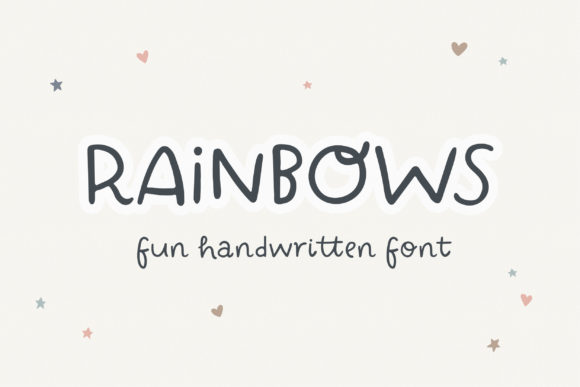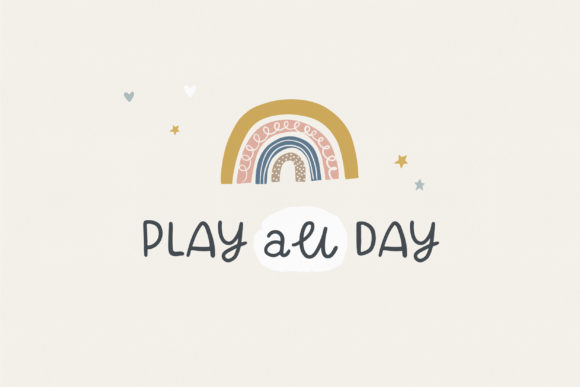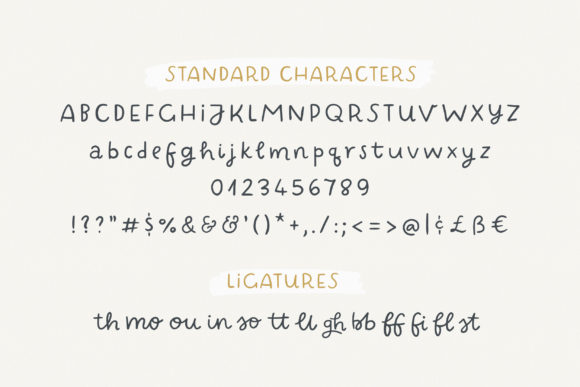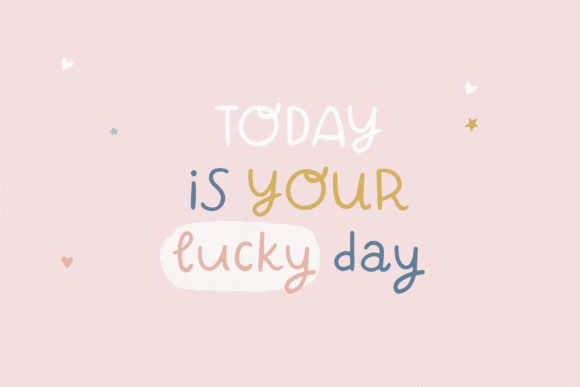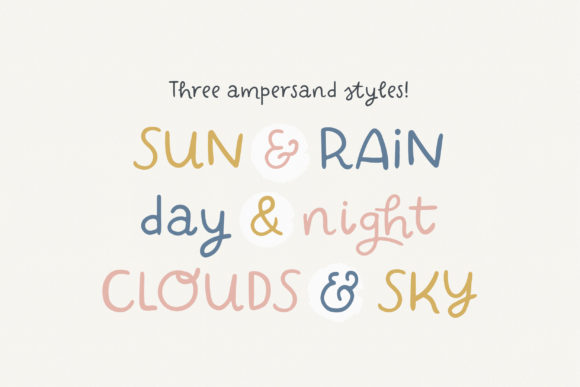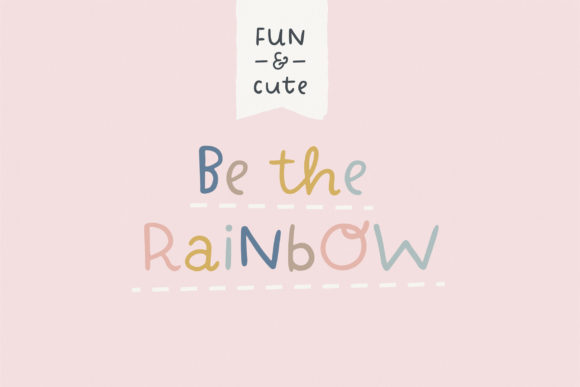
Rainbows Font
About Rainbows Font
Rainbows is a fun and simple handwritten font. Thin lettered and cute, this font will brighten up a variety of design ideas related to children or school.